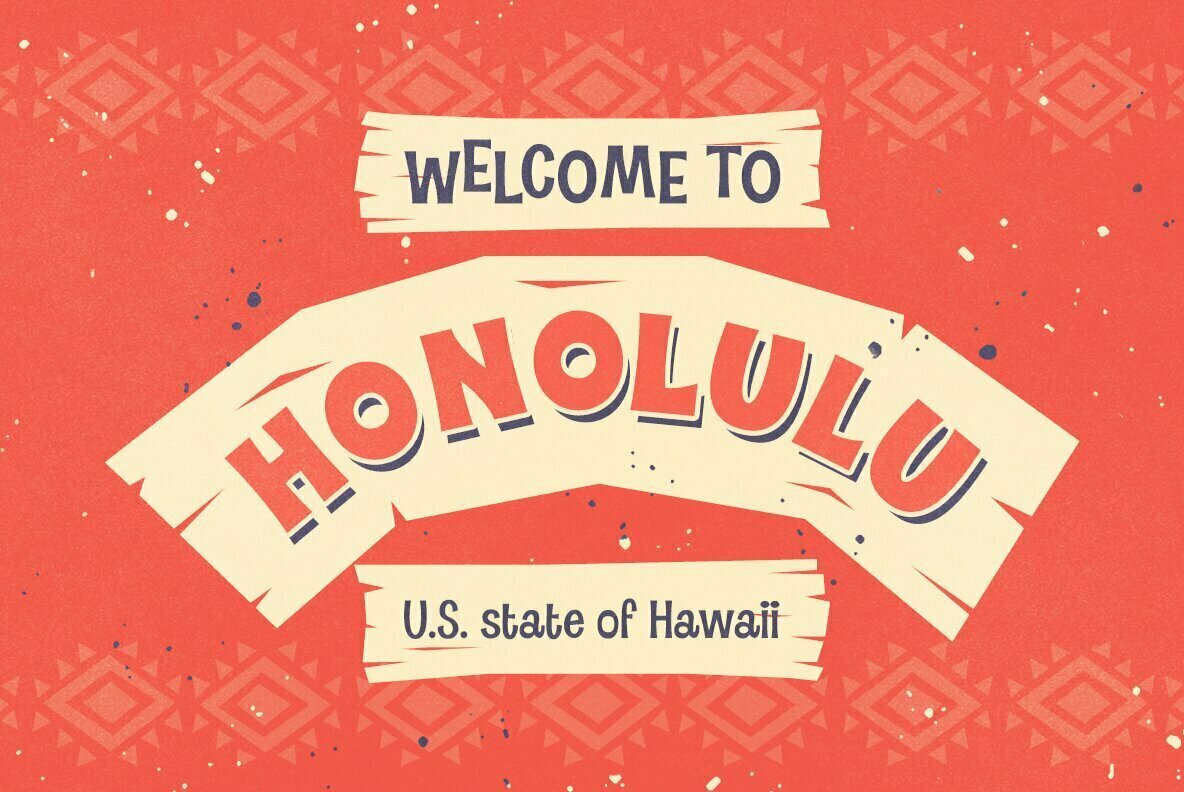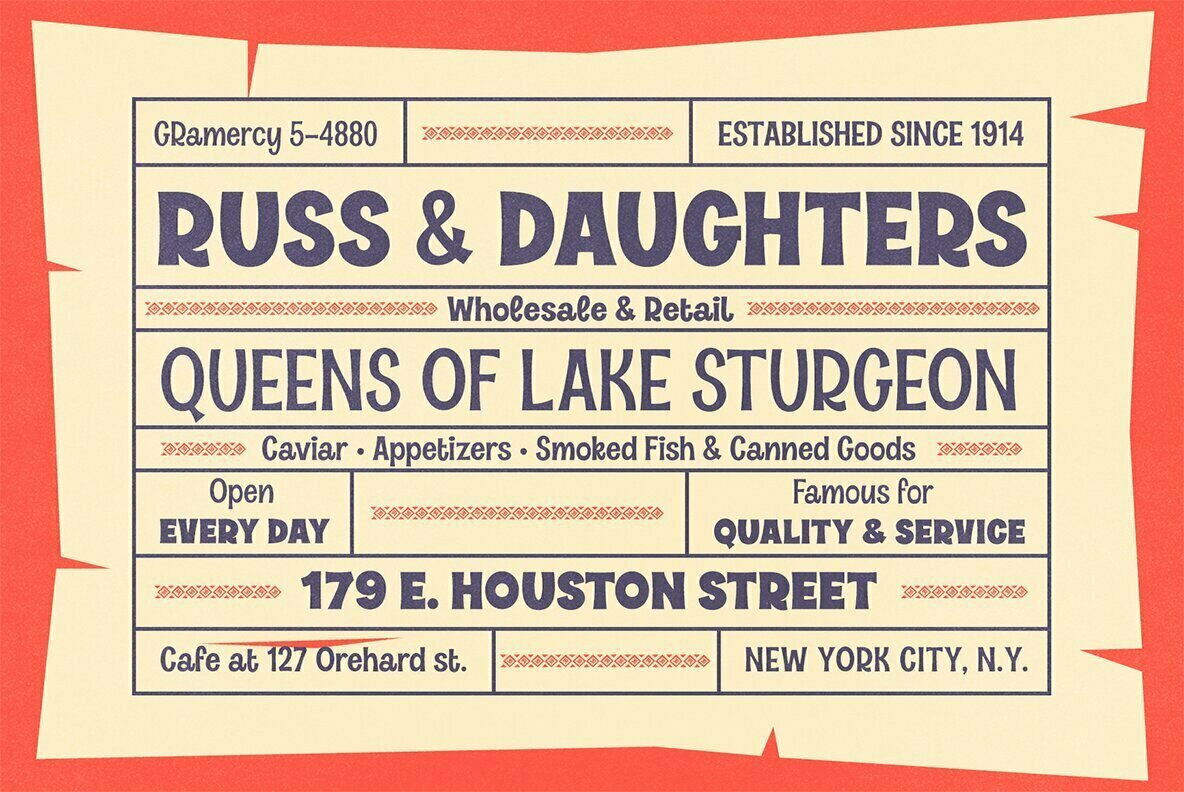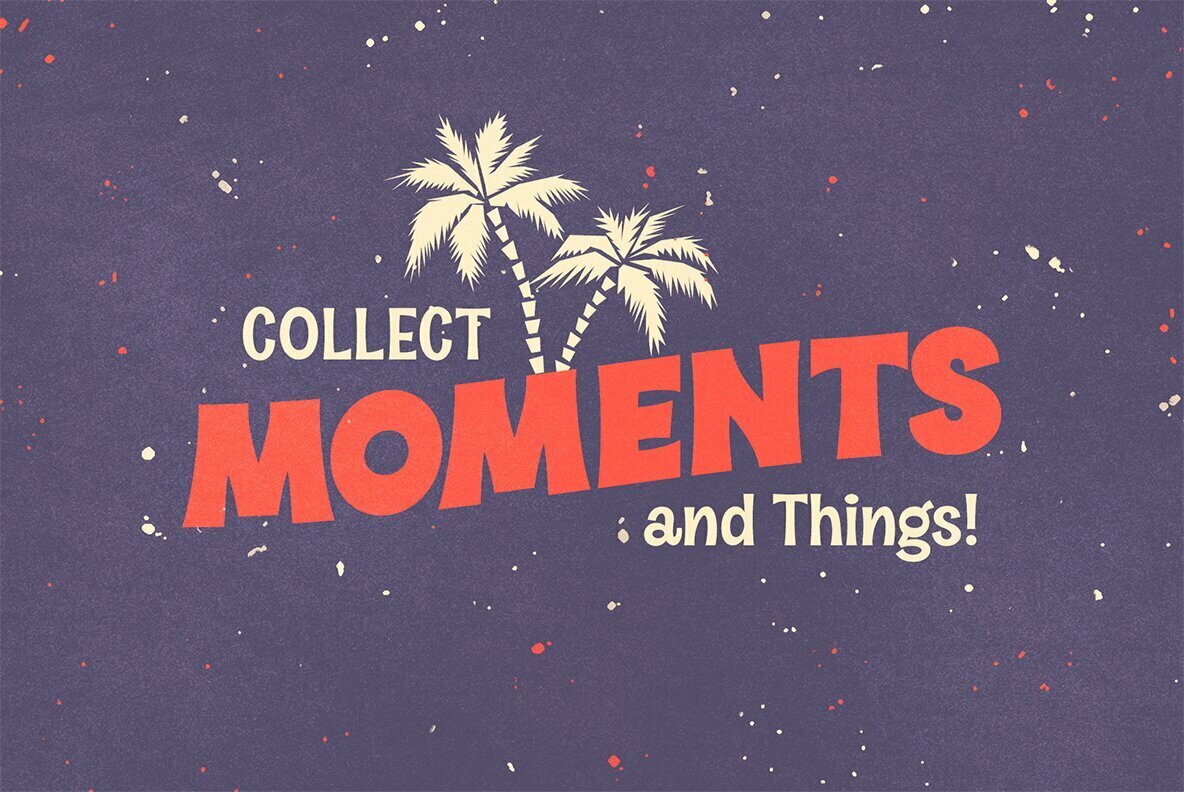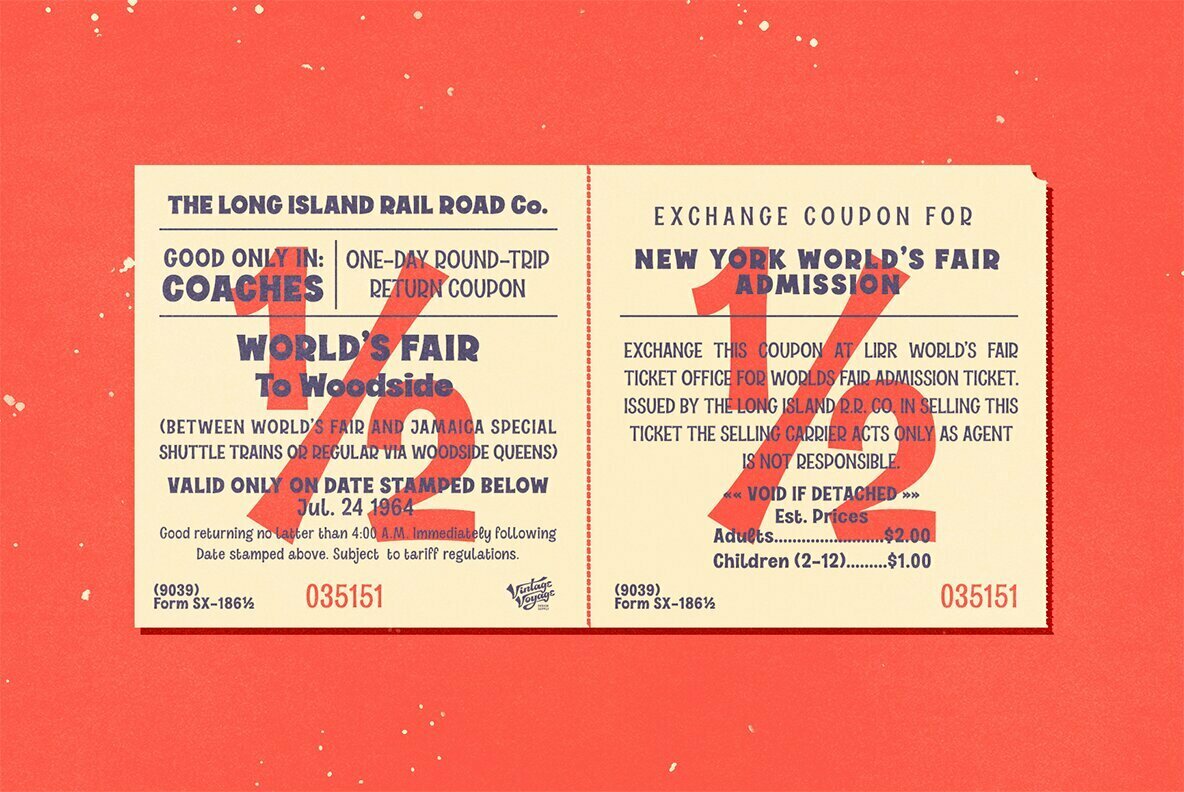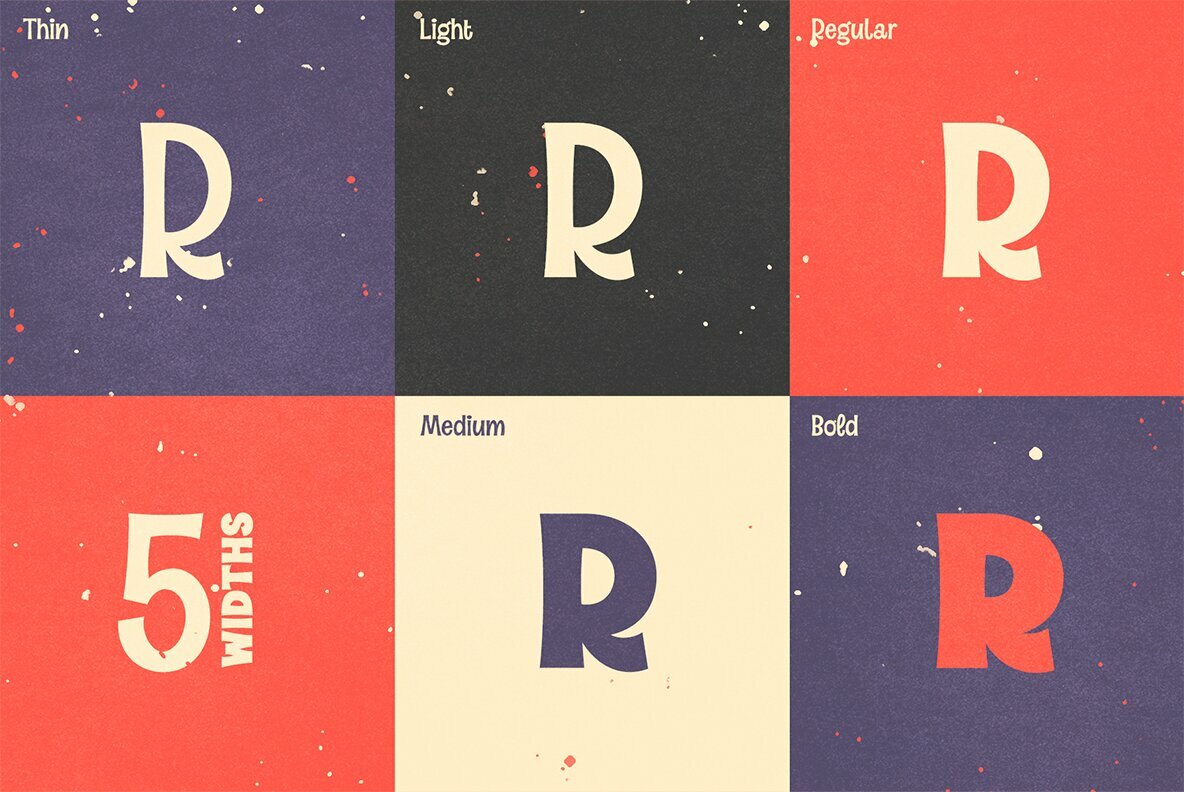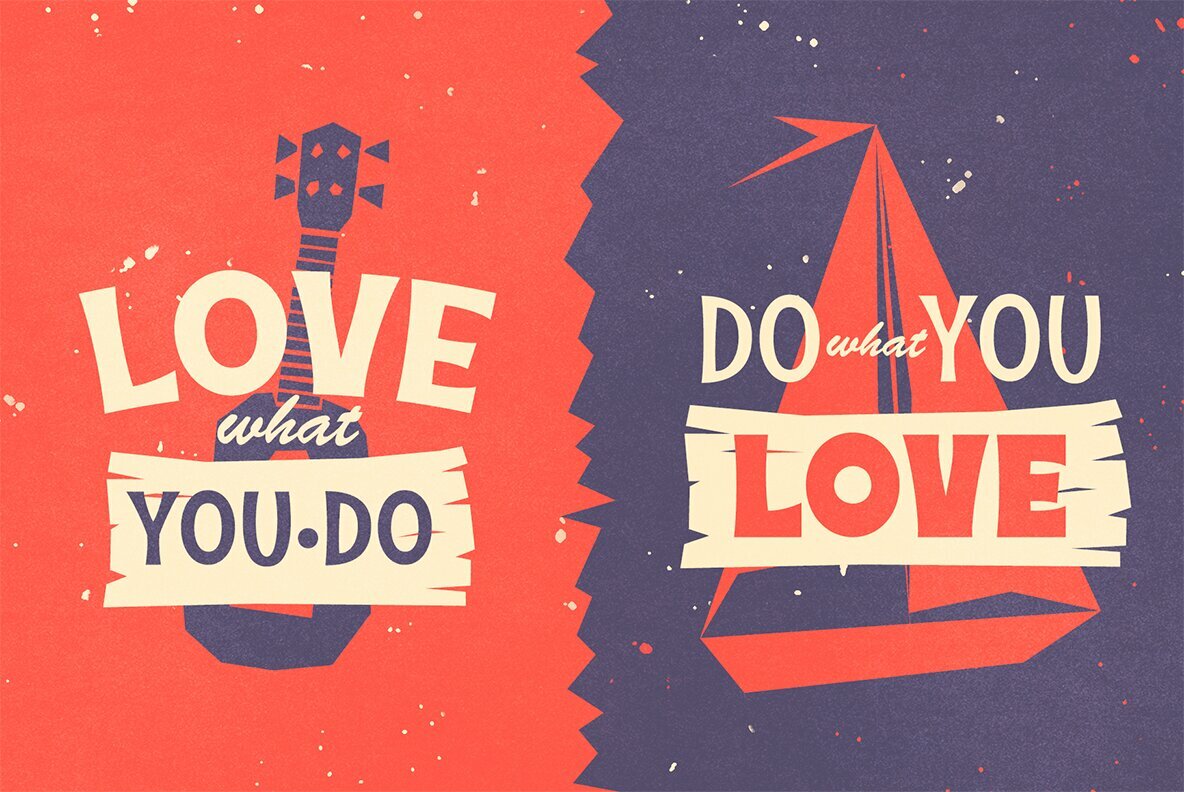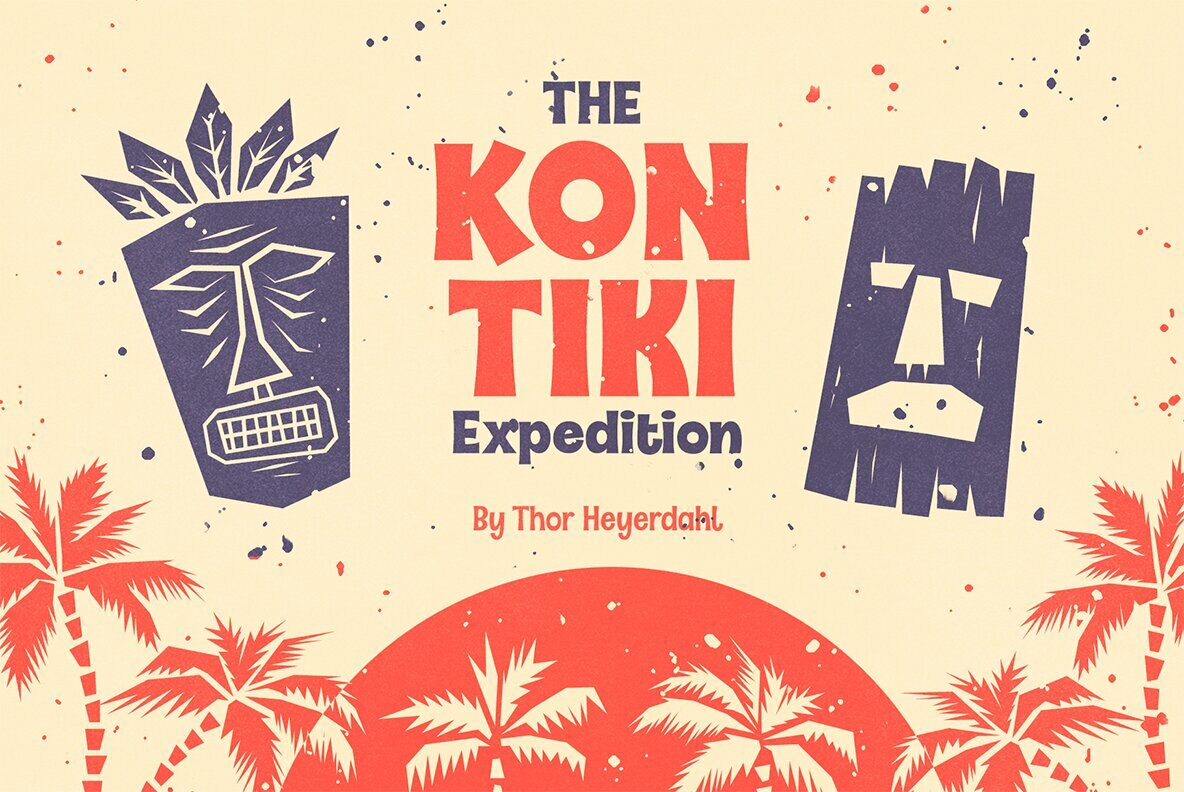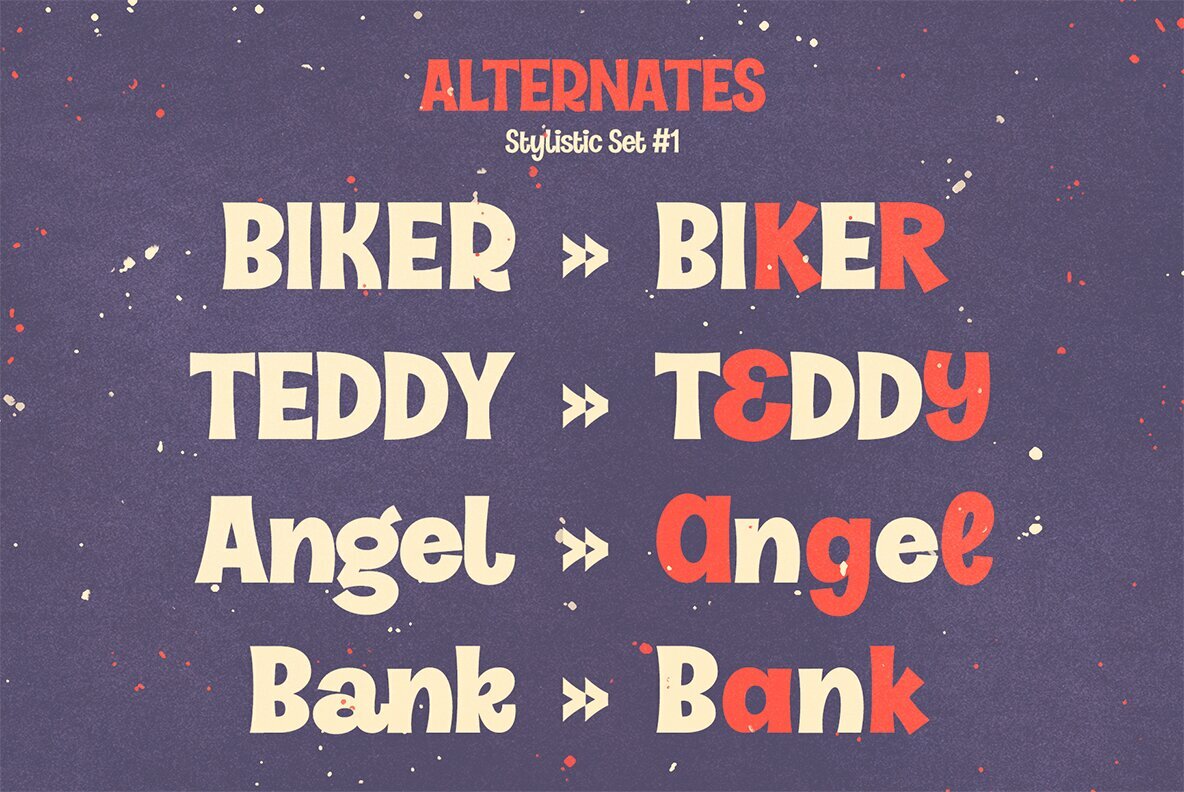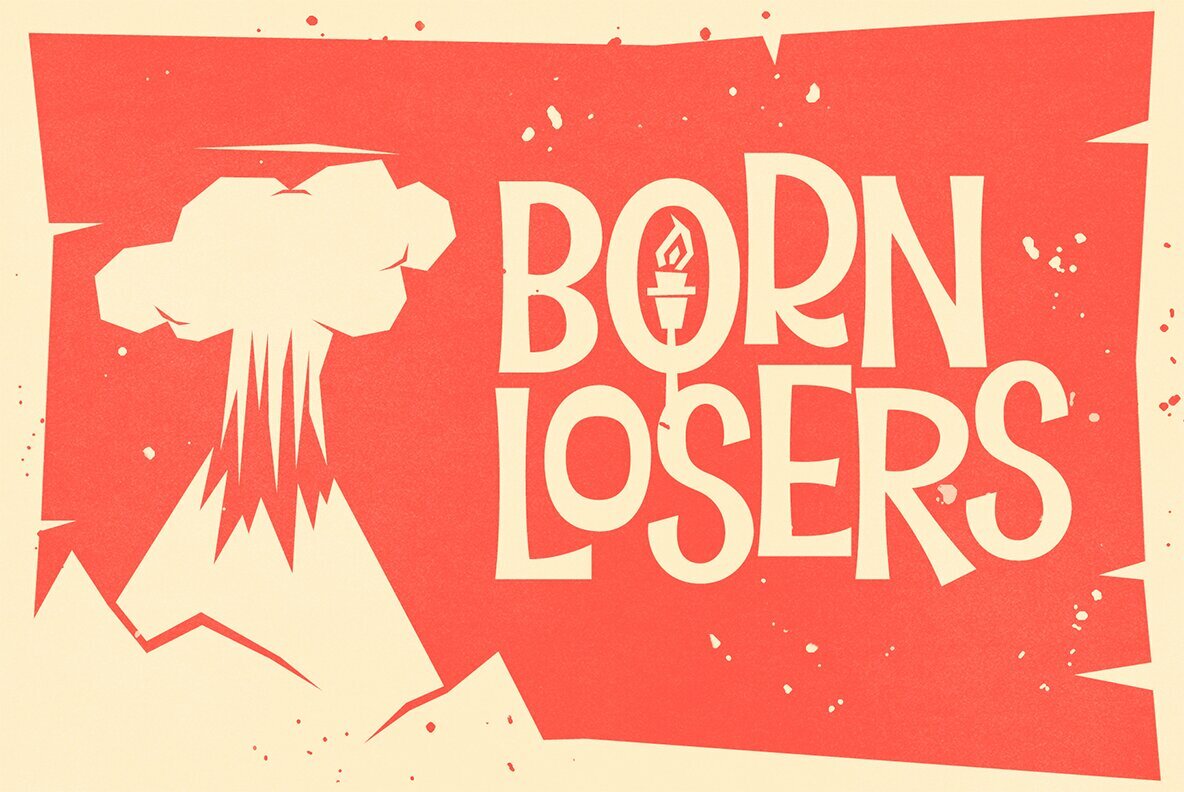
Halau Font
With a nod to the whimsical designs of the 60s and 70s, Halau offers a fanciful yet elegant font family perfect for projects bursting with personality. Its colorful, retro cartoon style is ideal for spring and summer themes, evoking sunny days and playful ambiance. This font collection is a versatile choice reminiscent of vintage Hawaiian style posters, bringing a touch of nostalgia to contemporary design. Features:Halau: Retro Cartoon-Inspired Fancy Font Family